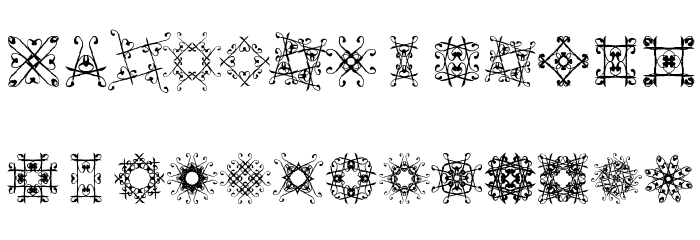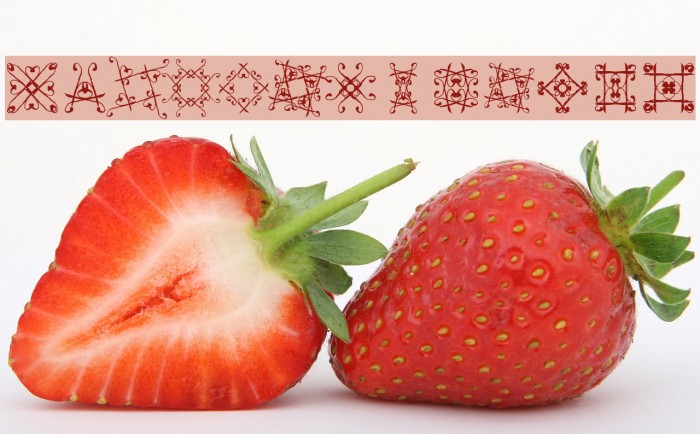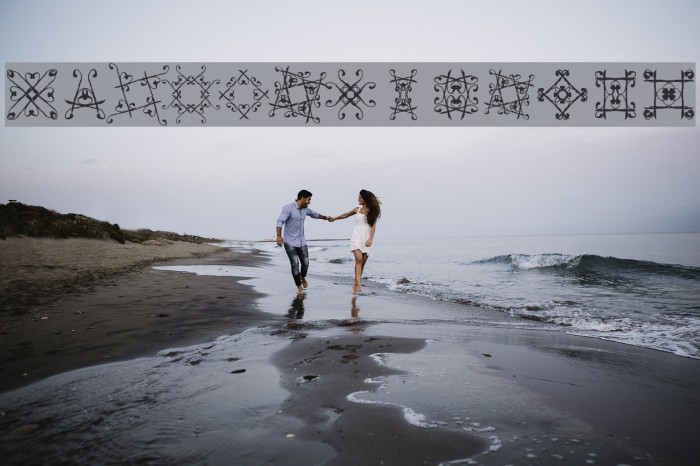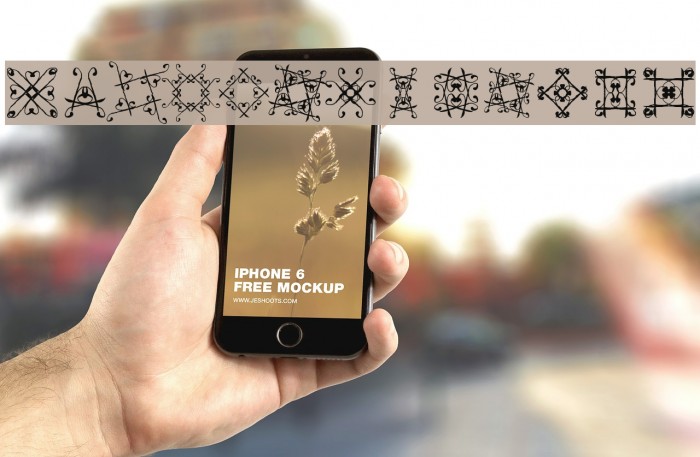
font3933 Font
This font is a highly decorative and ornate style, featuring intricate patterns and flourishes that extend from each character. The design is reminiscent of vintage or baroque art, with each letter and symbol appearing as a unique piece of artwork. The characters are complex, with swirling lines and detailed embellishments that create a sense of elegance and sophistication. This font is not suitable for body text due to its elaborate nature but serves as an eye-catching element for special projects.
An ornate and decorative font with intricate patterns and flourishes.
- Proposed Projects: Ideal for wedding invitations, luxury branding, decorative posters, and artistic projects that require a touch of elegance and sophistication.
- Overall Style: Vintage, Decorative
- Use Case: Logos, Headlines, Decorative elements